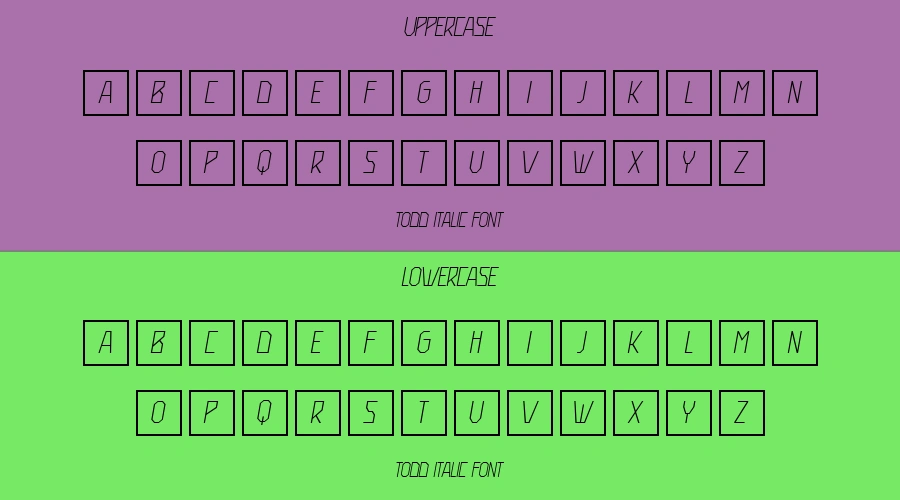
About Todd Italic Font
Todd Italic Font represents a sophisticated approach to type design, balancing playful elements with clarity. Perfect for marketing materials, this font family showcases impressive reliability and market confidence throughout its character set. Designers appreciate its versatility and reliability.
Designers will appreciate nuanced touches including curved brackets and pi characters, adding sophistication to any project. These features become apparent in specification lists, where detail retention matters most. The careful treatment of stroke contrast and technical tradition ensures optimal performance.